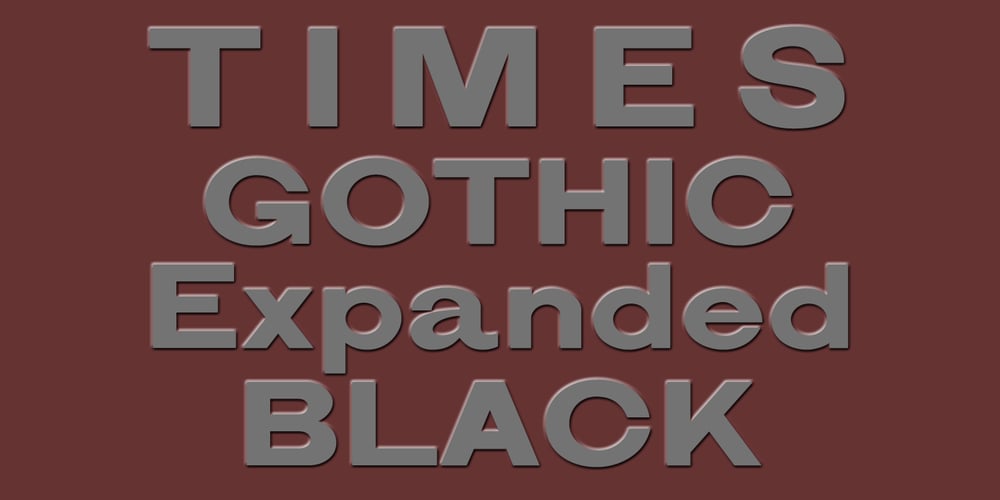
Times Gothic Font Family was designed by Jordan Davies and published by Wooden Type Fonts. Times Gothic contains 2 styles and family package options. Based on a revival of one of the popular wooden type fonts of the 19th century, suitable for display, or text.